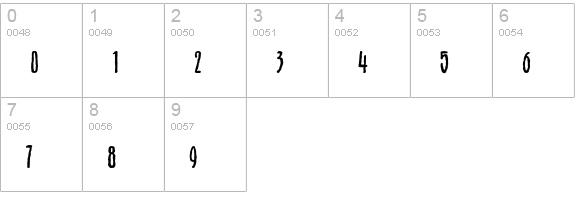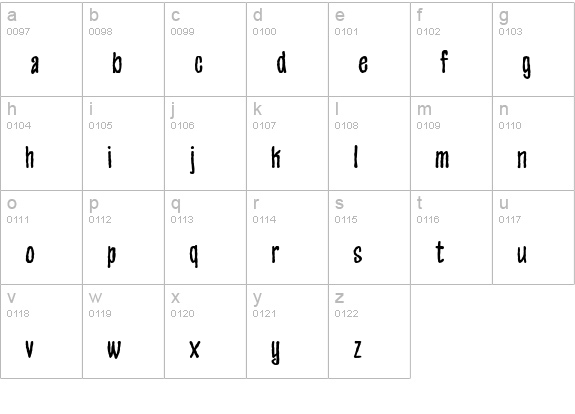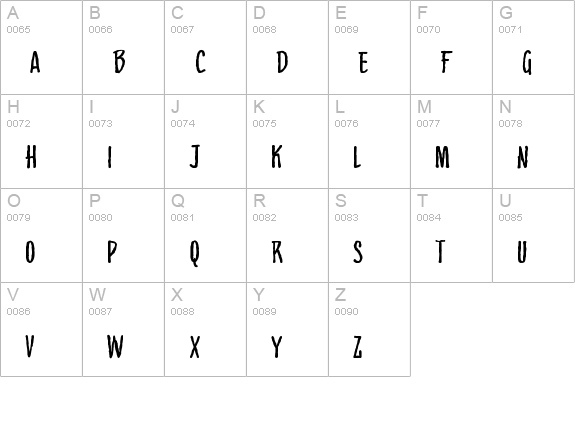
Appetite Font Details
Appetite font is a modern and stylish typeface that exudes elegance and sophistication. With its sleek lines and contemporary design, this font is perfect for adding a touch of class to any project. The clean and crisp letterforms of Appetite font make it a versatile choice for a wide range of applications, from branding and advertising to packaging and editorial design. What sets Appetite font apart is its unique blend of classic elegance and modern simplicity. Whether used for headlines, body text, or branding elements, this font is sure to make a statement and leave a lasting impression on your audience. Best of all, Appetite font is available for free download at FontsMarket.com. So go ahead and add this stunning typeface to your collection today and elevate your designs to the next level!